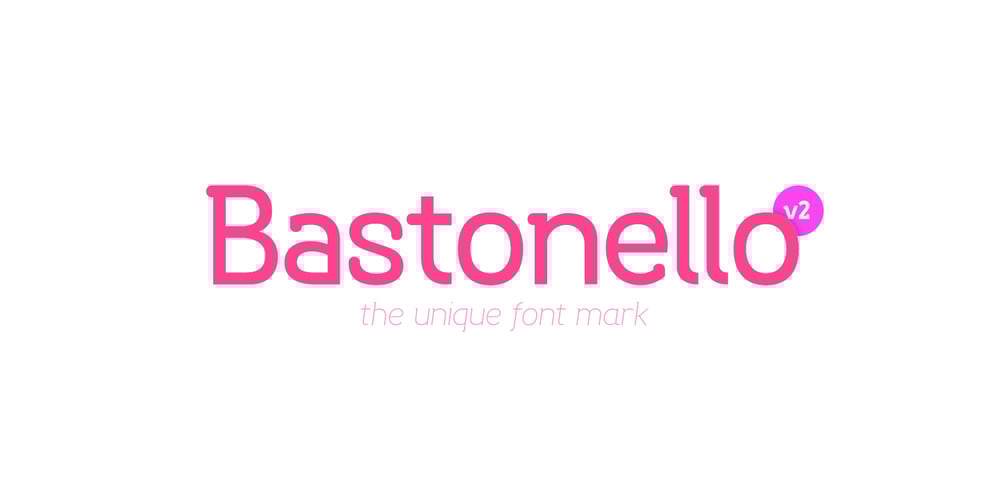
Bastonello Font Family was designed by Robert Corseanschi and published by Robert Corseanschi. Bastonello contains 14 styles and family package options. Bastonello is designed for a wide range of uses. It can be used for logos, business cards, websites, newspapers and many other graphic designs. This font has a nice feel and can be used everywhere, it is just awesome. It is available in light, regular and bold weights with corresponding italics.